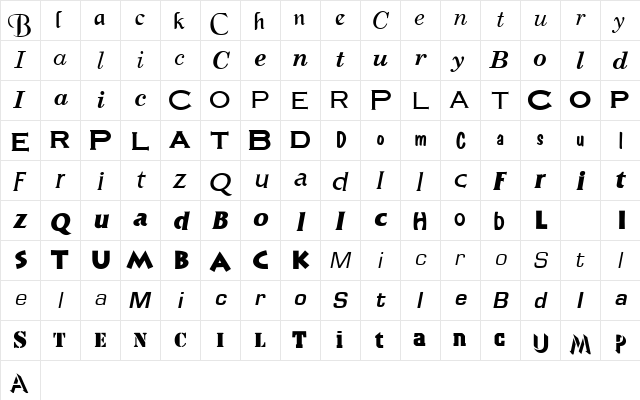
Sample-ESF Normal
Design Context for Sample-ESF Typeface
Sample-ESF offers clean, dependable letterforms without strong stylistic allegiance, making it a practical choice for designers who need flexibility.
Pro Tip: Pair Sample-ESF with a font of contrasting weight or personality to build a more expressive typographic hierarchy.